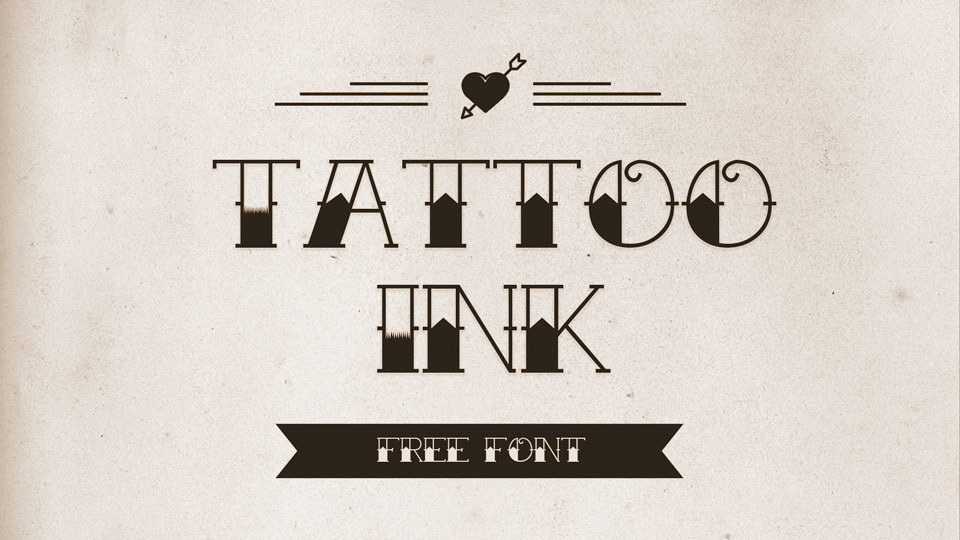
Download Tattoo Ink font, a retro style typeface, inspired by the multitude of tattoo-lettering styles drilled into people’s skin everyday worldwide.
Designer: Ryan Splint